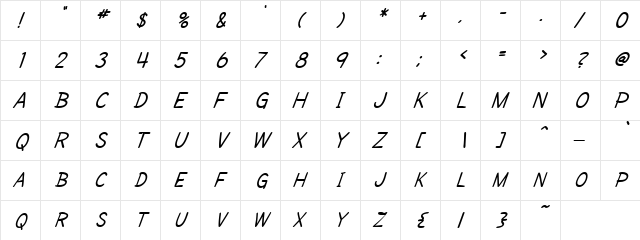
Sfoty Flost Regular
Design Context for Sfoty Flost Typeface
Sfoty Flost takes a measured approach to typography — its balanced proportions and neutral character make it a reliable workhorse for both digital and print work.